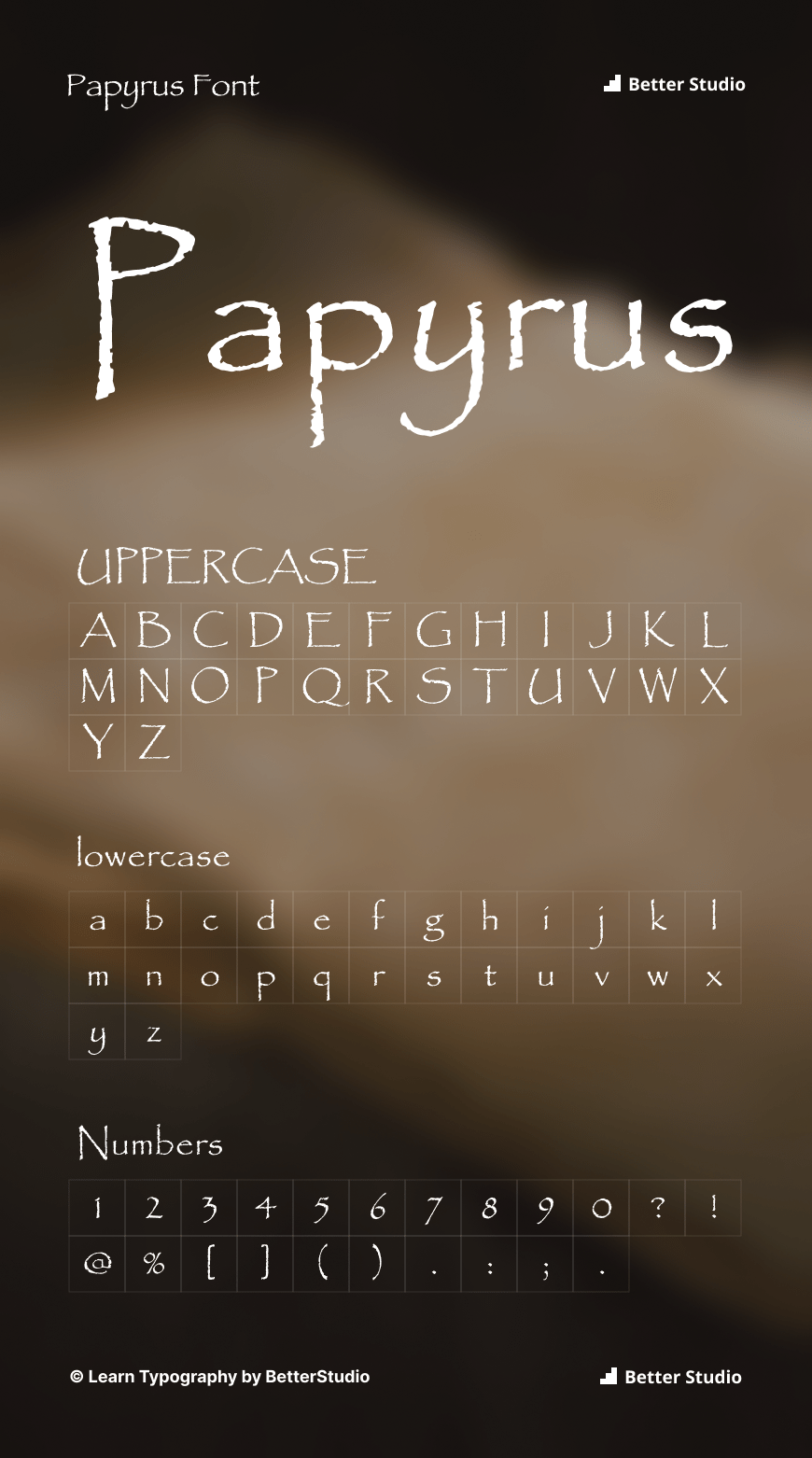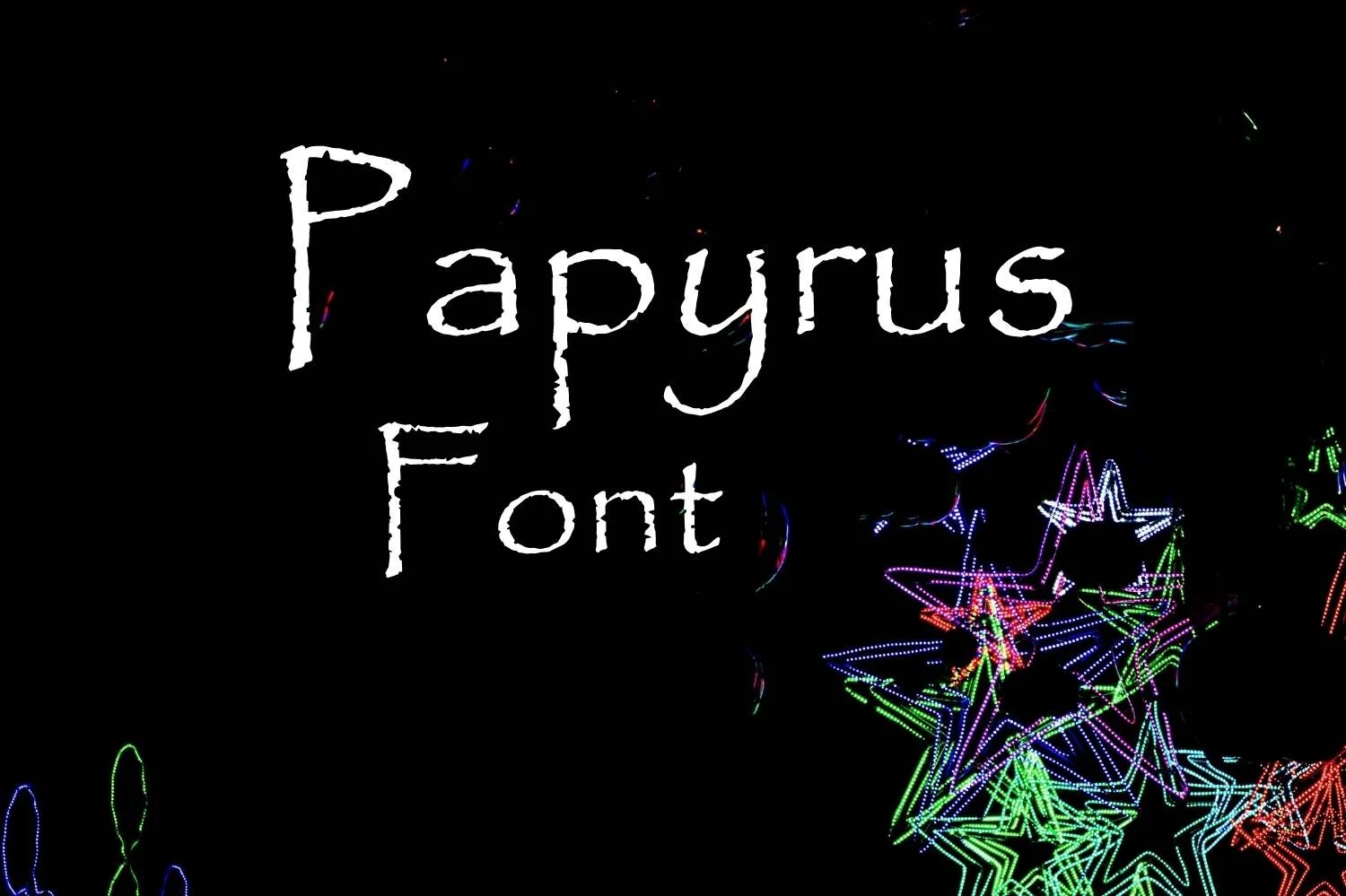
Papyrus Font Why It's Bad . Despite being able to help people with learning disabilities, people in the graphic design circle continue to have negative feelings about it, calling those who use the font “artistically stunted and uneducated”, and went on to call those hating on comic sans as “ableist”. And while there’s no shortage of blogs and online polls dedicated on this subject, no one truly gives a good reason as to why they dislike the papyrus. The font was one of the typefaces preloaded onto windows 95—where it stuck out like a sore thumb alongside more stately. Why people hate the papyrus font there’s no clear reason why designers and typographers hate the typeface. The story behind papyrus, the font everyone hates. Accidentally saw avatar 2 with open caption screening. In the hall of shame for fonts, we all know which one stands on top: Because generally as typographers we are. 3 hours of having papyrus in the screen. The world's 2nd most hated font.
The font was one of the typefaces preloaded onto windows 95—where it stuck out like a sore thumb alongside more stately. 3 hours of having papyrus in the screen. Why people hate the papyrus font there’s no clear reason why designers and typographers hate the typeface. The world's 2nd most hated font. And while there’s no shortage of blogs and online polls dedicated on this subject, no one truly gives a good reason as to why they dislike the papyrus. Despite being able to help people with learning disabilities, people in the graphic design circle continue to have negative feelings about it, calling those who use the font “artistically stunted and uneducated”, and went on to call those hating on comic sans as “ableist”. Because generally as typographers we are. The story behind papyrus, the font everyone hates. Accidentally saw avatar 2 with open caption screening. In the hall of shame for fonts, we all know which one stands on top:
Why Papyrus is One of the World’s Most Hated Fonts HipFonts
Papyrus Font Why It's Bad The world's 2nd most hated font. 3 hours of having papyrus in the screen. In the hall of shame for fonts, we all know which one stands on top: The story behind papyrus, the font everyone hates. The world's 2nd most hated font. Why people hate the papyrus font there’s no clear reason why designers and typographers hate the typeface. And while there’s no shortage of blogs and online polls dedicated on this subject, no one truly gives a good reason as to why they dislike the papyrus. Despite being able to help people with learning disabilities, people in the graphic design circle continue to have negative feelings about it, calling those who use the font “artistically stunted and uneducated”, and went on to call those hating on comic sans as “ableist”. Because generally as typographers we are. Accidentally saw avatar 2 with open caption screening. The font was one of the typefaces preloaded onto windows 95—where it stuck out like a sore thumb alongside more stately.
Papyrus Font Papyrus Know Your Meme Papyrus Font Why It's Bad Accidentally saw avatar 2 with open caption screening. The font was one of the typefaces preloaded onto windows 95—where it stuck out like a sore thumb alongside more stately. 3 hours of having papyrus in the screen. The world's 2nd most hated font. Why people hate the papyrus font there’s no clear reason why designers and typographers hate the typeface.. Papyrus Font Why It's Bad.
Famous Logos in Papyrus Font on Behance Papyrus Font Why It's Bad Despite being able to help people with learning disabilities, people in the graphic design circle continue to have negative feelings about it, calling those who use the font “artistically stunted and uneducated”, and went on to call those hating on comic sans as “ableist”. 3 hours of having papyrus in the screen. Why people hate the papyrus font there’s no. Papyrus Font Why It's Bad.
Why Papyrus is One of the World’s Most Hated Fonts HipFonts Papyrus Font Why It's Bad And while there’s no shortage of blogs and online polls dedicated on this subject, no one truly gives a good reason as to why they dislike the papyrus. Why people hate the papyrus font there’s no clear reason why designers and typographers hate the typeface. The story behind papyrus, the font everyone hates. The font was one of the typefaces. Papyrus Font Why It's Bad.
Papyrus Font Download Free Font Papyrus Font Why It's Bad In the hall of shame for fonts, we all know which one stands on top: Accidentally saw avatar 2 with open caption screening. The font was one of the typefaces preloaded onto windows 95—where it stuck out like a sore thumb alongside more stately. 3 hours of having papyrus in the screen. Why people hate the papyrus font there’s no. Papyrus Font Why It's Bad.
Papyrus Font Google Docs Papyrus Font Why It's Bad Accidentally saw avatar 2 with open caption screening. The world's 2nd most hated font. Why people hate the papyrus font there’s no clear reason why designers and typographers hate the typeface. The font was one of the typefaces preloaded onto windows 95—where it stuck out like a sore thumb alongside more stately. The story behind papyrus, the font everyone hates.. Papyrus Font Why It's Bad.
Papyrus Font Free Download Papyrus Font Why It's Bad Why people hate the papyrus font there’s no clear reason why designers and typographers hate the typeface. Despite being able to help people with learning disabilities, people in the graphic design circle continue to have negative feelings about it, calling those who use the font “artistically stunted and uneducated”, and went on to call those hating on comic sans as. Papyrus Font Why It's Bad.